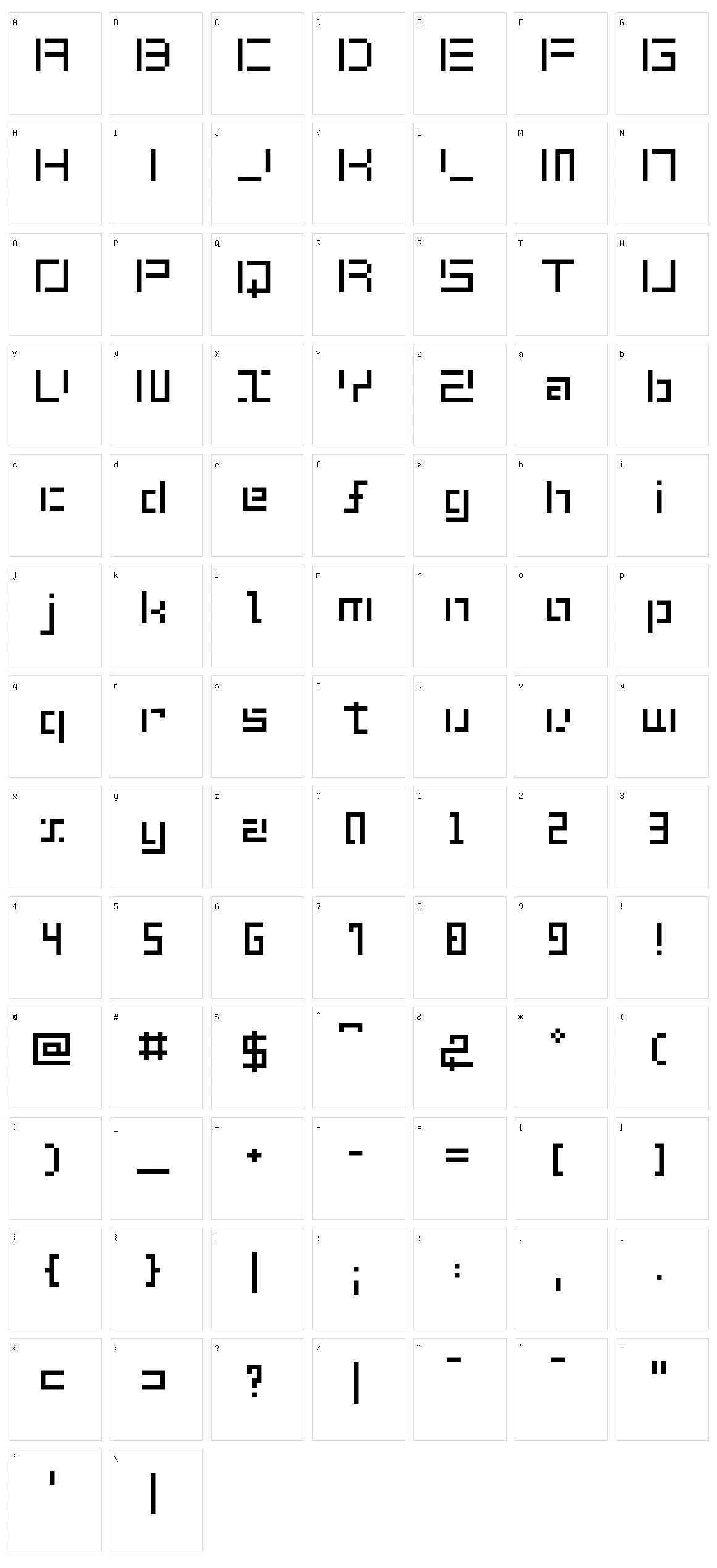
The free font Shuin Sans is carefully designed by Wellinton Lenzi, showcasing a thoughtful balance of creativity and usability and falls under the Square font style. When you download the ZIP file, it contains only 12.19 KB of font files, making it lightweight and quick to download. Please review the license details below to understand permitted usage and distribution rights. If license information is not available, we recommend using this font for personal projects only or contacting the author directly for commercial usage permissions.